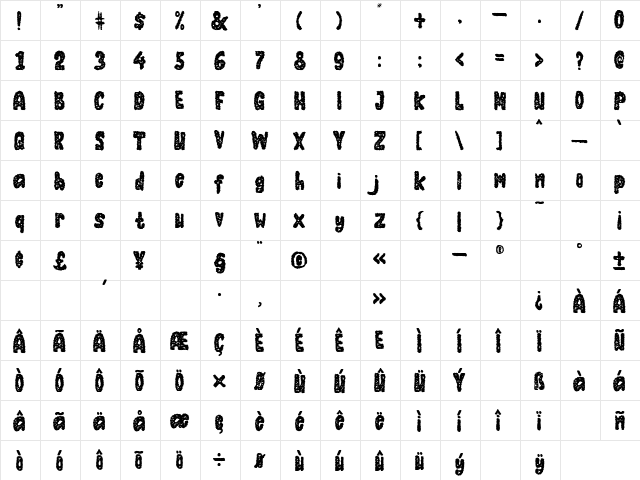
Halloweendy Rough Regular
Design Context for Halloweendy Rough Typeface
Halloweendy Rough trades polish for personality, using distressed and eroded forms to bring grit and attitude to creative work.
Suited to punk-influenced zines, underground music branding, streetwear, and raw, anti-corporate design.
Pro Tip: Pair Halloweendy Rough with intentionally raw or lo-fi design elements. Fighting against it with overly polished surroundings will undermine its personality.